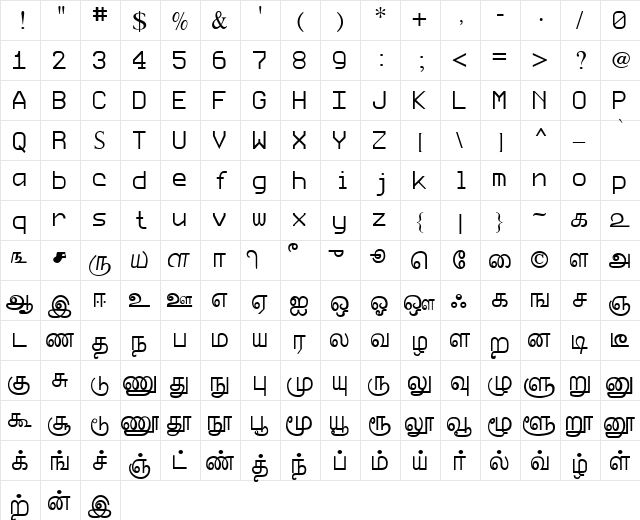
TSCMylai Regular
Design Context for TSCMylai Typeface
TSCMylai takes a measured approach to typography — its balanced proportions and neutral character make it a reliable workhorse for both digital and print work.
Pro Tip: Pair TSCMylai with a font of contrasting weight or personality to build a more expressive typographic hierarchy.